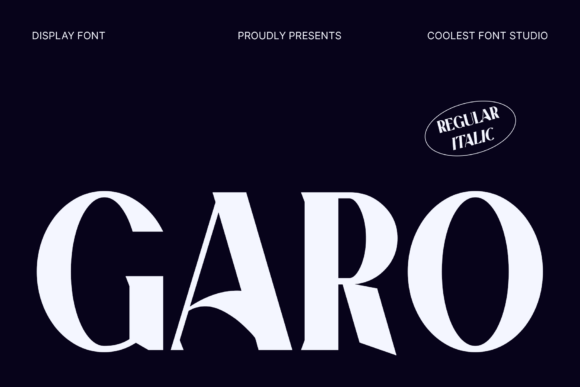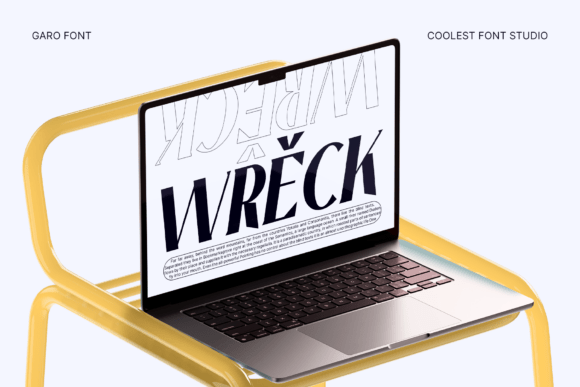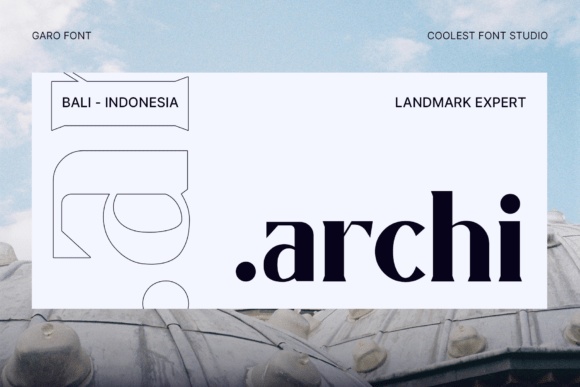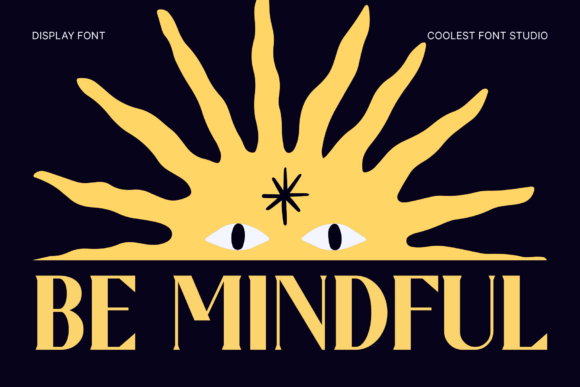
Garo Font
About the Garo Font
We are excited to introduce Garo Font, a must-have typeface for any serious designer. Garo – Serif Font
Garo is a bold and elegant serif font that blends timeless sophistication with modern charm. Designed with high contrast strokes, sharp serifs, and artistic ligatures, Garo is the perfect choice for designers looking to create luxury branding, classy editorial layouts, stylish logos, and premium packaging designs.
Each letter has been crafted with attention to detail, giving your text a professional yet unique personality. Whether you’re working on a fashion label, wedding invitation, or product packaging, Garo will elevate your design with style and confidence.
Perfect For:
✔ Luxury Branding
✔ Editorial & Magazine Titles
✔ Logo Design
✔ Packaging Design
✔ Invitations & Stationery
✔ Website Headlines
✔ Social Media Graphics